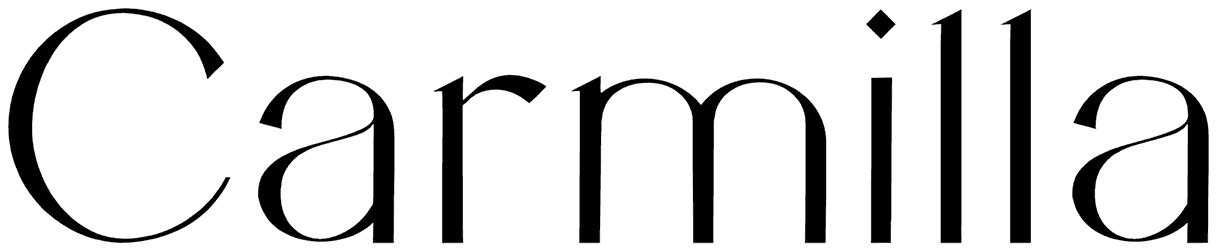
Carmilla Font
If you want to prove your artistic talent to the audience, we would like to offer you a formal serif font the same to Carmilla. This fashion font comes with clean shapes and very accurate curves, thus it feels totally elegant.
It can help you to bring a feeling of trustworthiness, confidence, professionalism, and respect to your artwork. Including this font in invitations, diplomas, business cards, branding, or logos would be a totally brilliant idea.